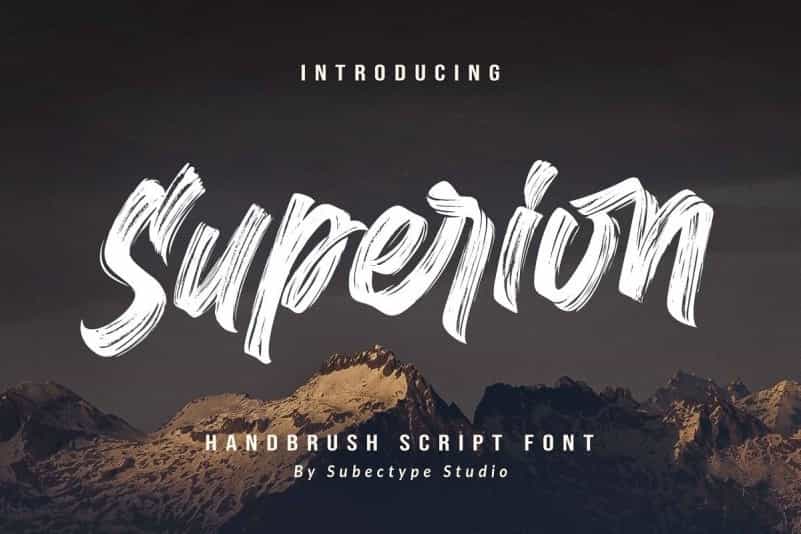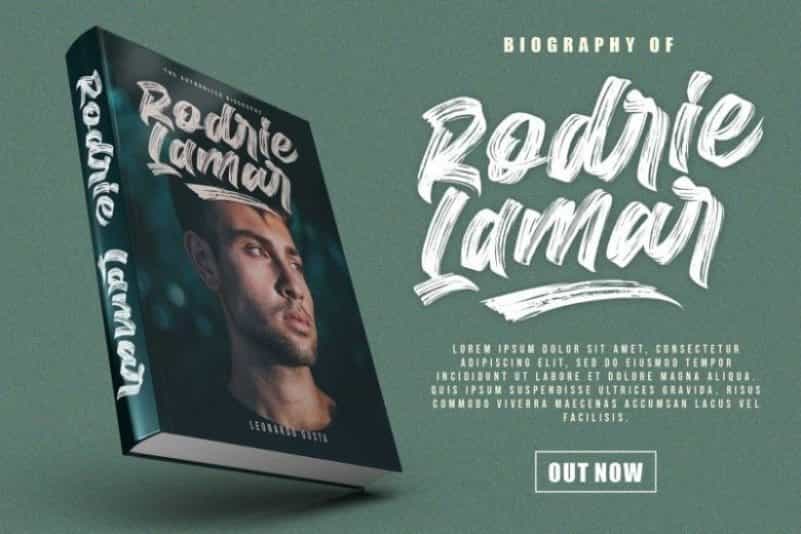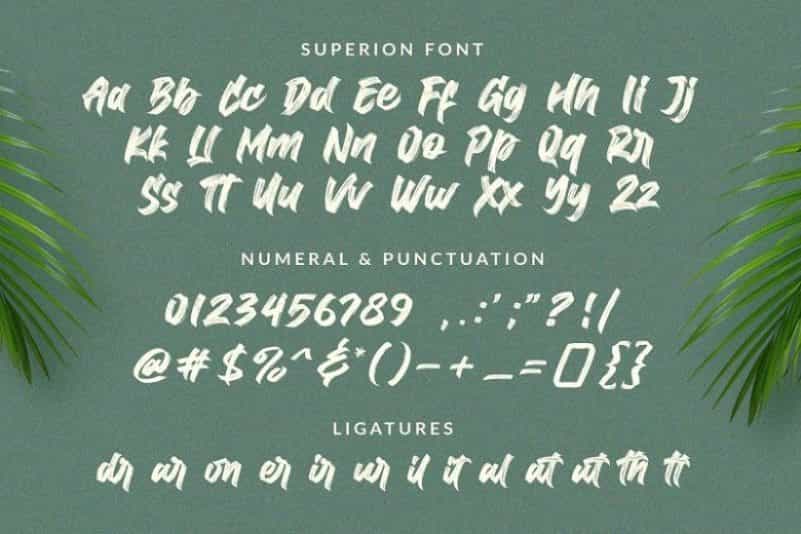
Discover Superion Brush Script Font, part of the Brush collection—a versatile and unique font perfect for adding a personal touch to your projects. Download it for free and enjoy crafting designs with style, from invitations to social media posts. This font is available exclusively for personal use, giving you the freedom to create without limits. Unlock your creativity with Superion Brush Script Font today!
Superion, that striking brush font pop drink FULL of energy. It’s very popular because even supermarkets my ebook design to show a unique design sense making it richer and more diverse (copyrighted by its skillful delivery), but all of these skills serve in order merely to strengthen the central point which is unintentionally made in this.